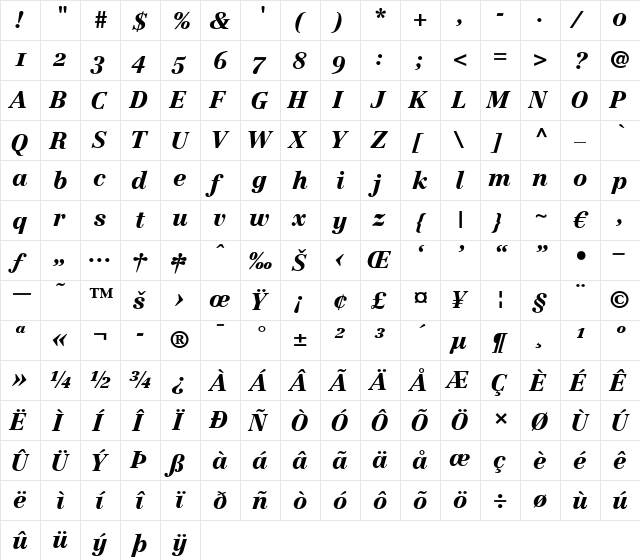
Centennial BlackItalicOsF Regular
Design Context for Centennial BlackItalicOsF Typeface
Centennial BlackItalicOsF offers clean, dependable letterforms without strong stylistic allegiance, making it a practical choice for designers who need flexibility. Its italic angle brings a sense of urgency and motion to the letterforms.
Pro Tip: Try Centennial BlackItalicOsF for annotation and caption copy alongside an upright companion — the contrast in angle creates a dynamic but ordered typographic system.